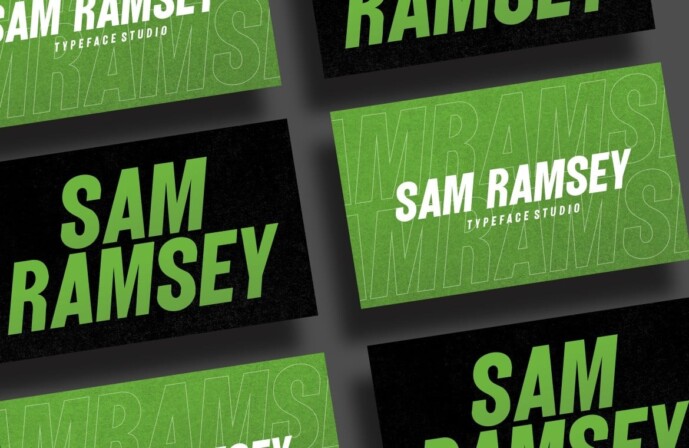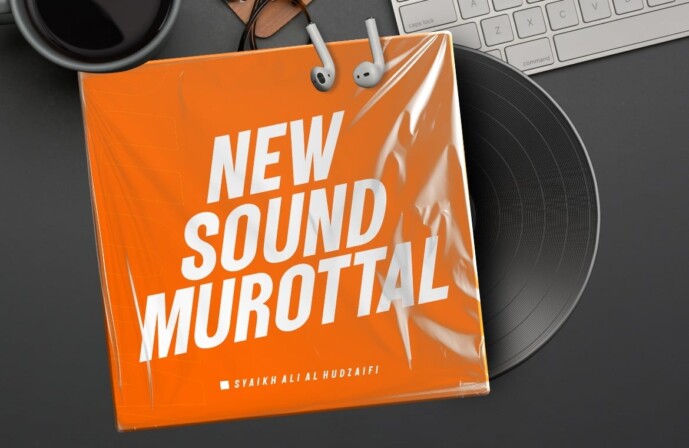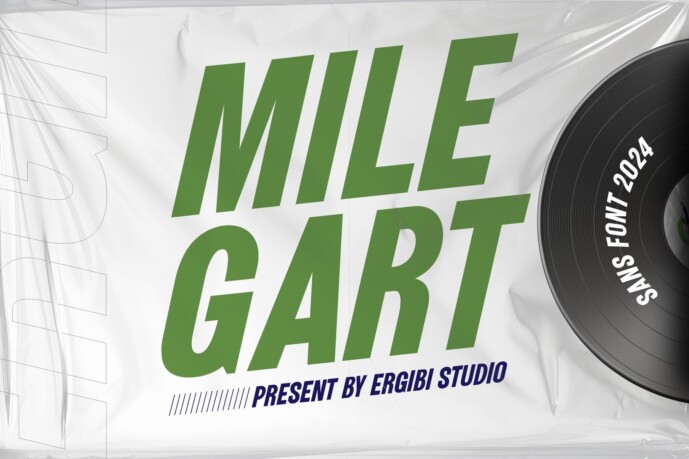
Milegart Font
Milegart font embodies a strong and unwavering style, reflected in its precise letters and contemporary details. It offers a perfect balance between sharp edges and soft curves. Each font in the collection can stand alone and command attention with its own dynamic and authoritative presence.